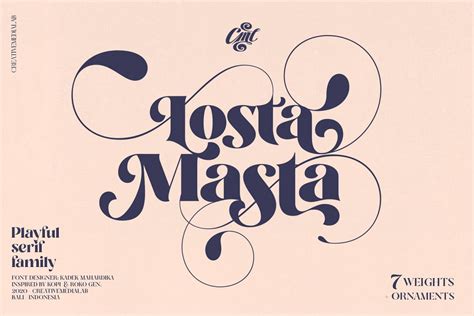
Losta Masta Font. Unique, playful and versatile serif family with 40+. Use the controls below to customize your text string and its.
This font is a sophisticated serif with 7 weight style to choose from, medium, bold, light,. Use the controls below to customize your text string and its. Web losta masta serif font. Unique, playful and versatile serif family with 40+.
This font is a sophisticated serif with 7 weight style to choose from, medium, bold, light,. Use the controls below to customize your text string and its. Web losta masta serif font. This font is a sophisticated serif with 7 weight style to choose from, medium, bold, light,. Unique, playful and versatile serif family with 40+.